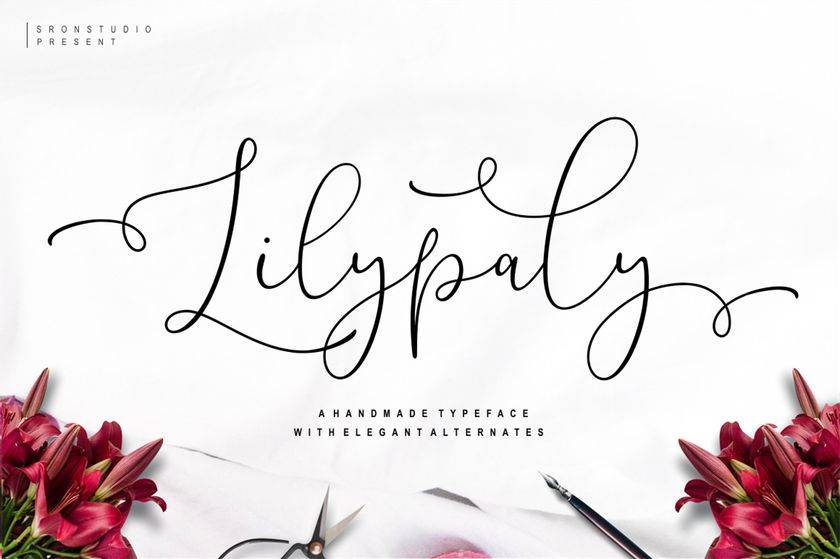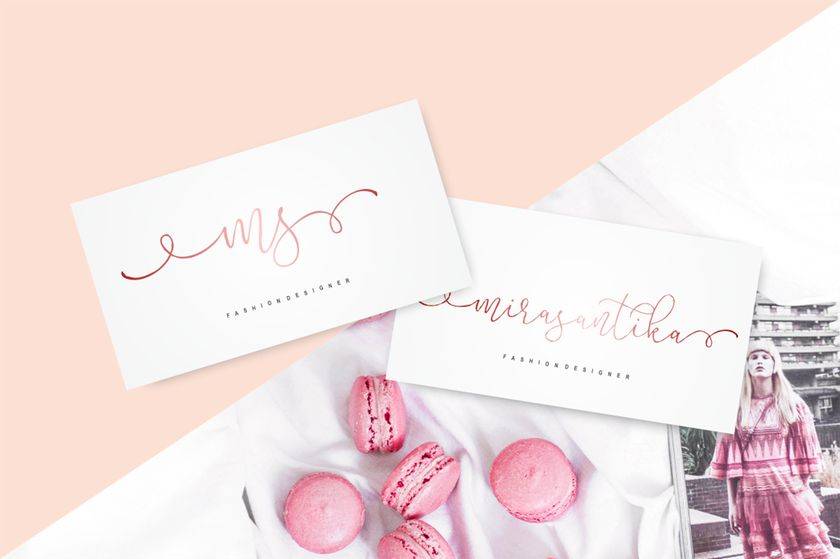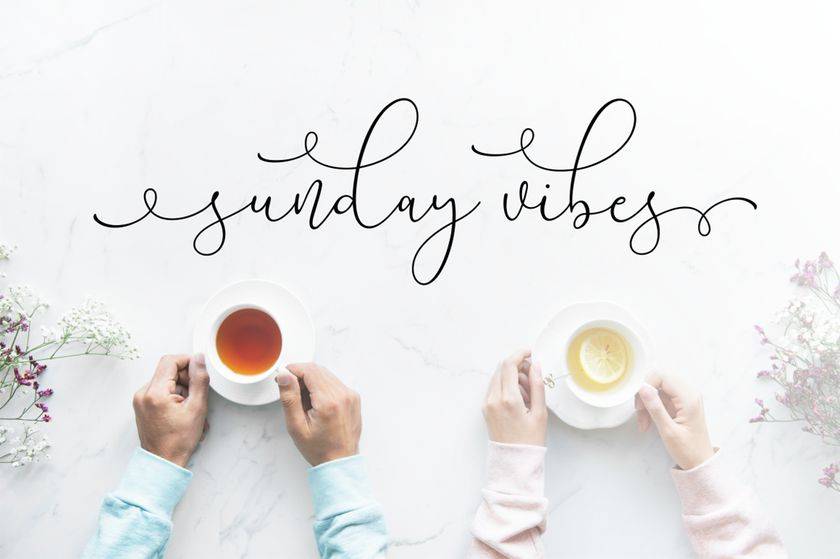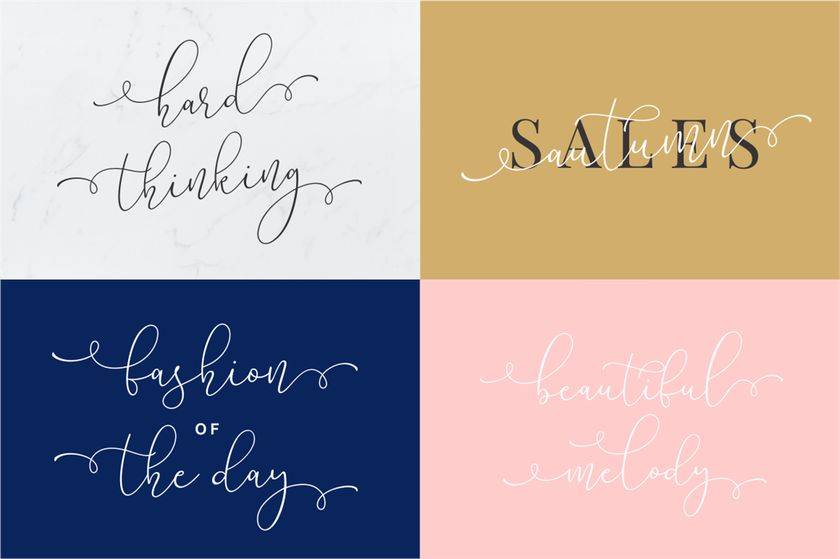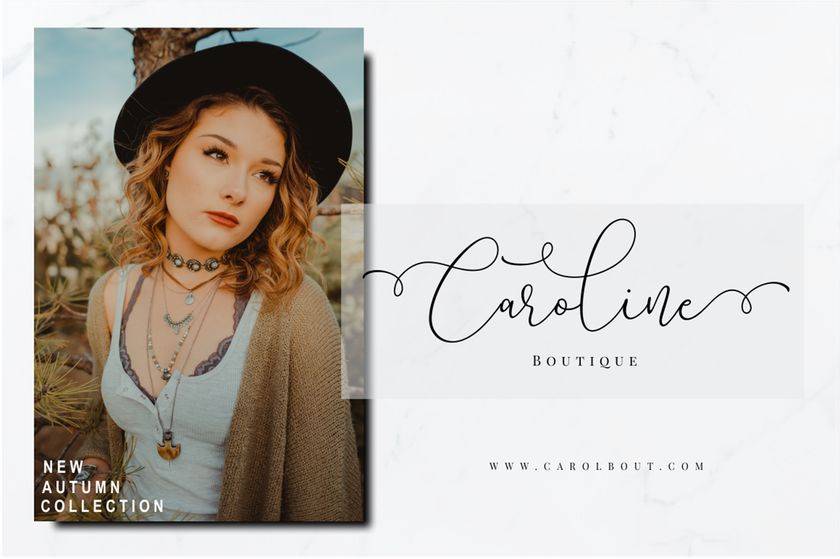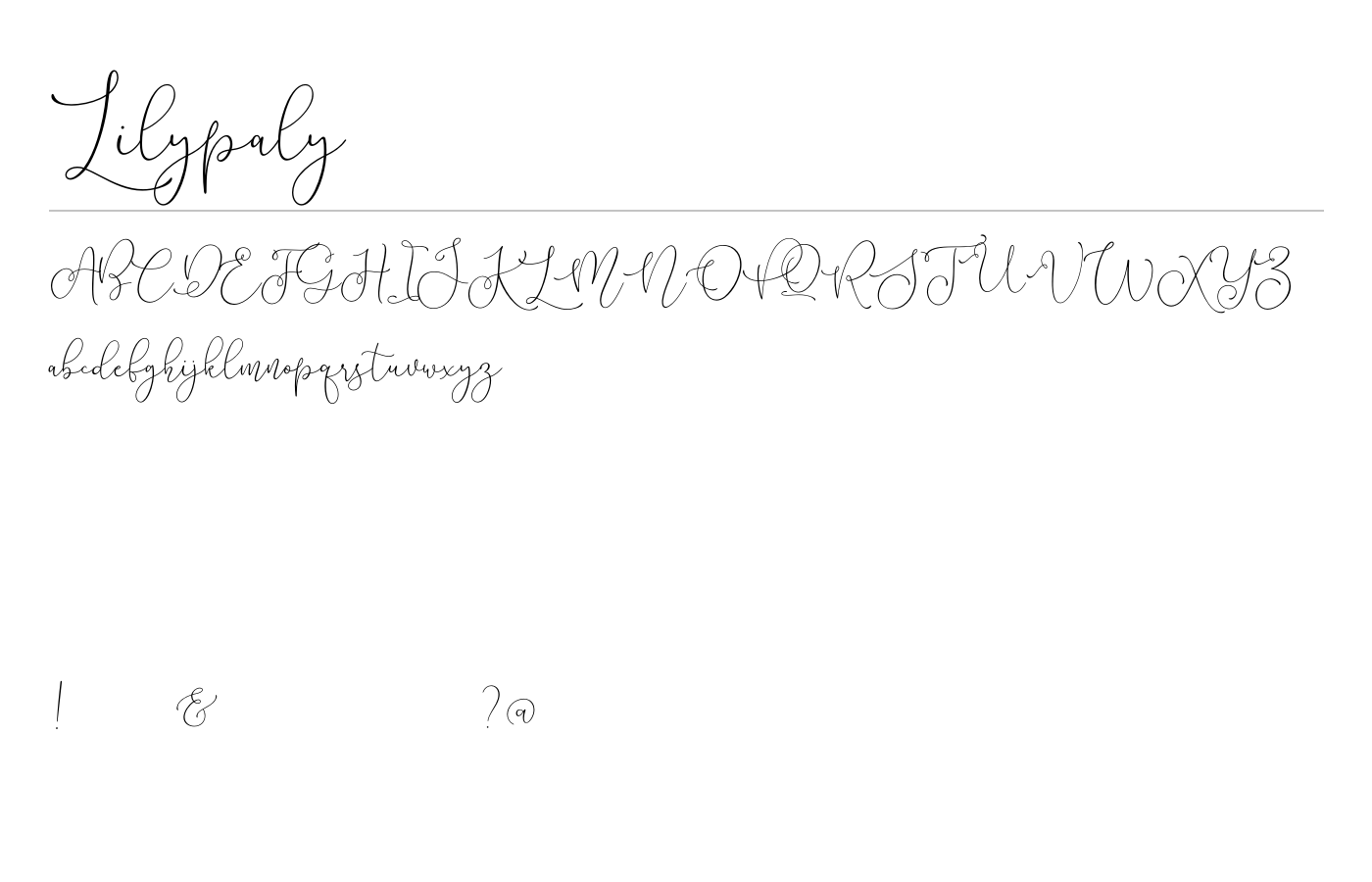
Lilypaly is a delicate, hand-drawn script font characterized by its thin strokes and elegant, swirling letterforms that create a whimsical and romantic feel. Its light weight and intricate loops make it ideal for invitations, branding, and other designs seeking a feminine and graceful touch. This font works best in decorative uses where its artistic style can shine without sacrificing readability.
Lilypaly Font
About Lilypaly Font
| Font family | Lilypaly Font |
| Designer | Sronstudio |